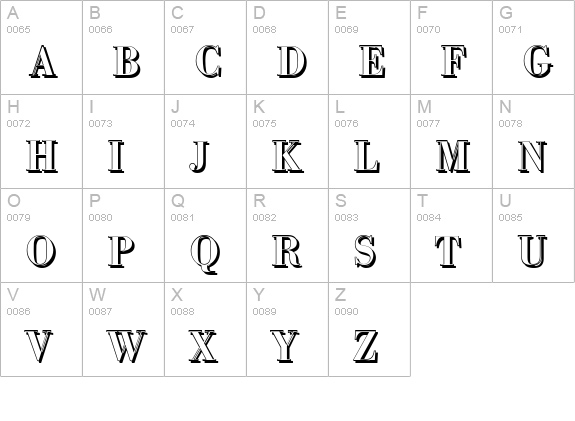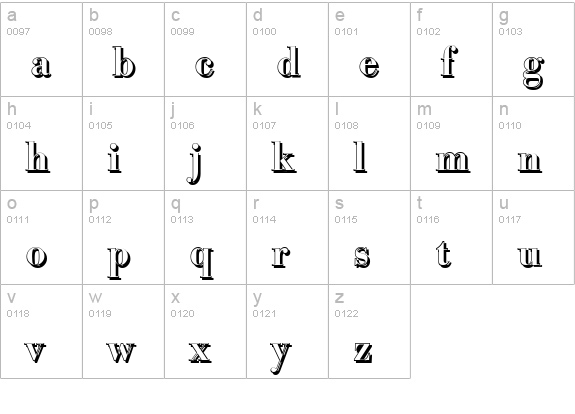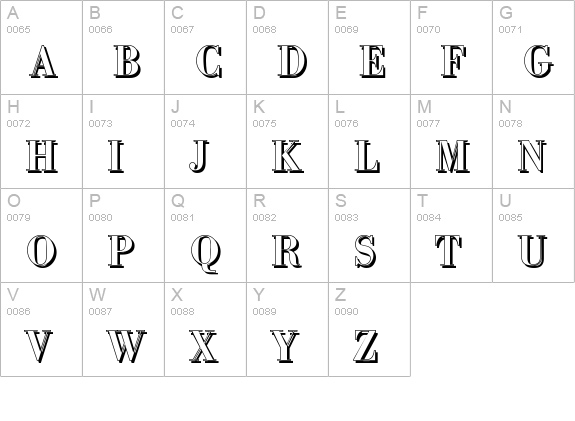
BodoniShadow-Medium-Regular Font Details
BodoniShadow-Medium-Regular is a balanced, medium-weight variant in the BodoniShadow typeface family \xE2\x80\x94 well suited to sub-headlines, navigation, and balanced editorial work.
BodoniShadow-Medium-Regular is a sophisticated and elegant font that exudes a sense of timeless charm and artistic flair. With its striking shadow effect, this font adds a touch of drama and depth to any design project. The sleek lines and sharp angles of BodoniShadow-Medium-Regular make it perfect for creating eye-catching headers, titles, and logos. What's even better is that BodoniShadow-Medium-Regular is available for free download at FontsMarket.com. So, whether you're a professional designer looking to add a touch of class to your work or a hobbyist exploring new creative avenues, this font is the perfect choice for making a lasting impression. Don't miss out on the opportunity to enhance your designs with the beauty and versatility of BodoniShadow-Medium-Regular - download it today and let your creativity shine!